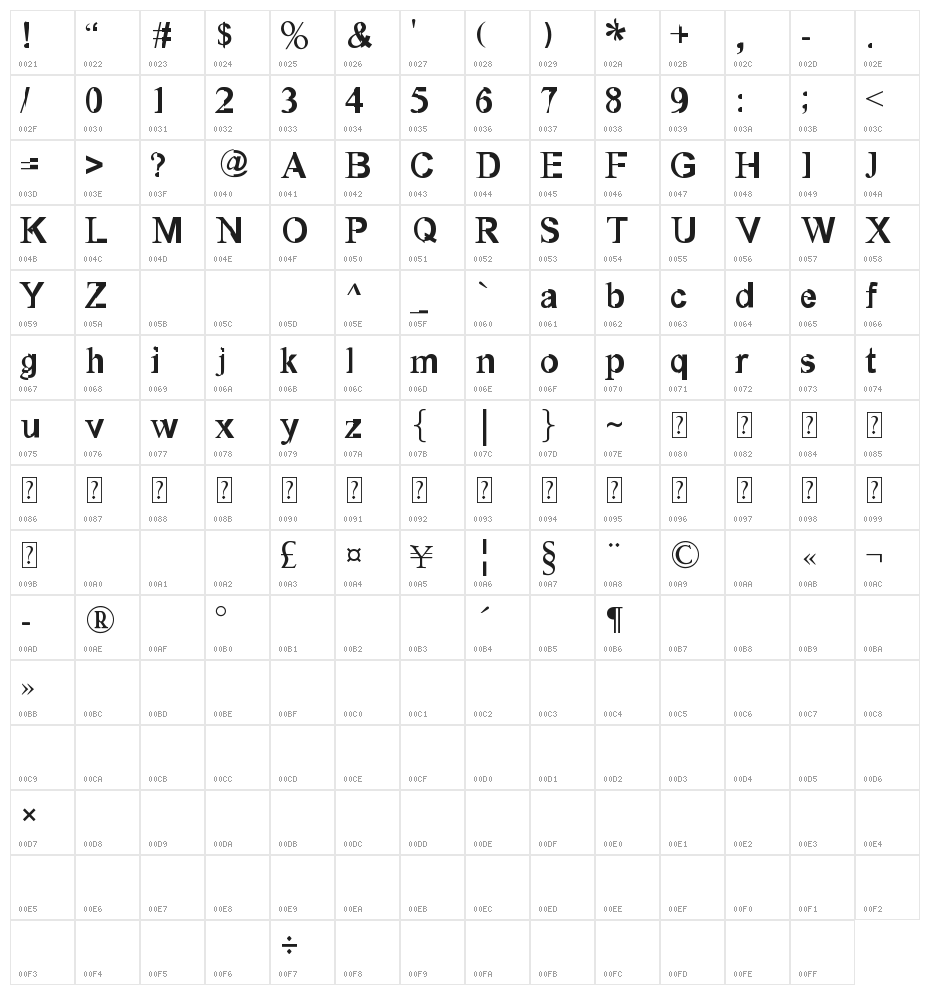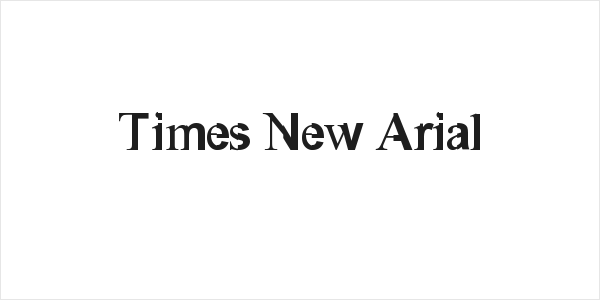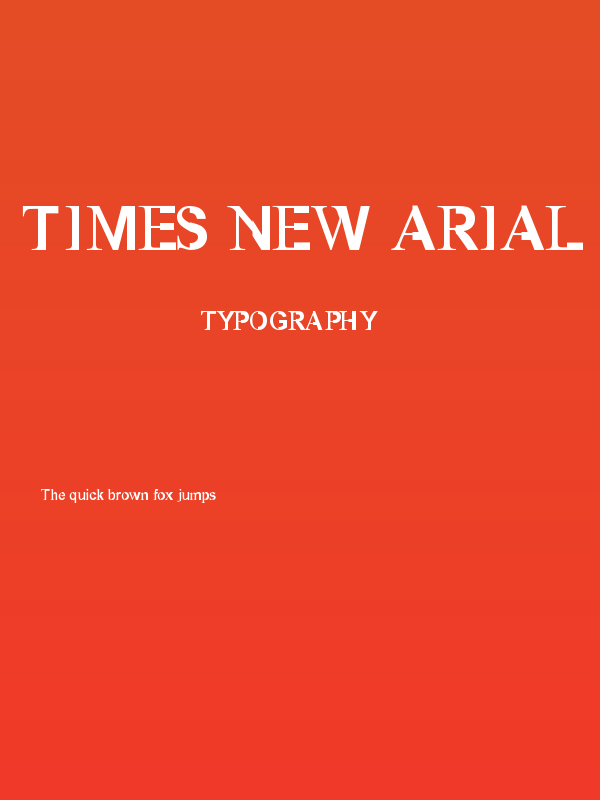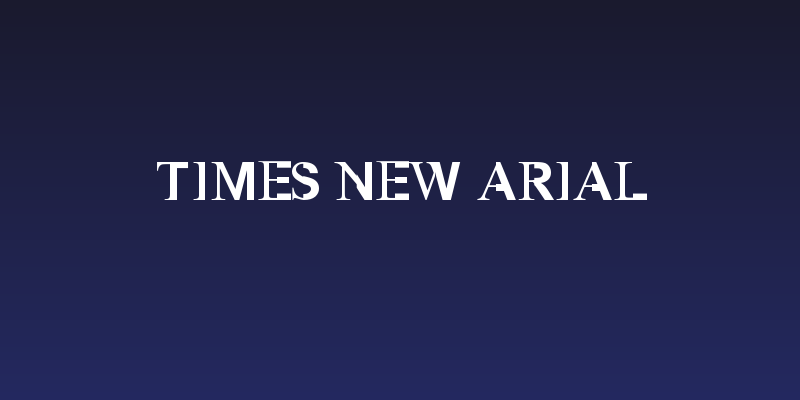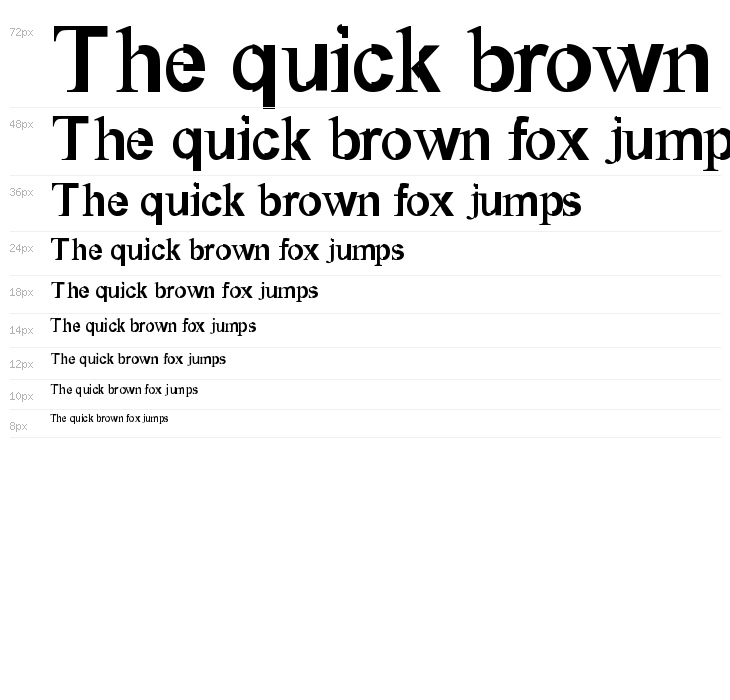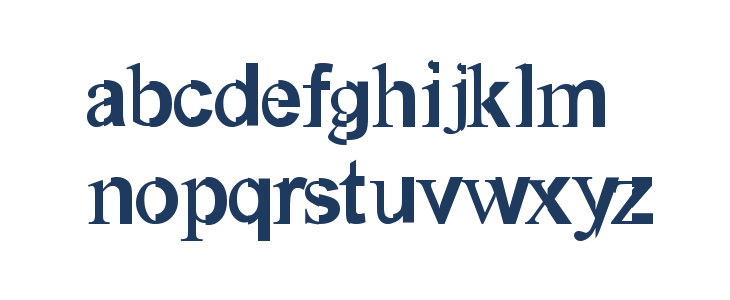
Times New Arial Font
Times New Arial Description
This font features a bold and commanding presence with its strong, thick strokes and high contrast between thick and thin lines. The serif style is evident in the sharp, angular serifs that add a touch of elegance and formality. The uppercase letters are tall and imposing, while the lowercase letters maintain a consistent height, providing a balanced and harmonious look. The numerals are clear and distinct, making them easily readable. Special characters are well-defined, ensuring versatility in various design contexts. Overall, this font combines traditional serif elements with a modern twist, making it suitable for a wide range of applications.
| Proposed Projects | Ideal for book covers, editorial design, branding, and formal invitations. |